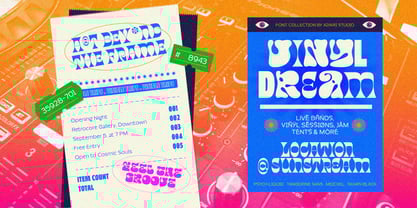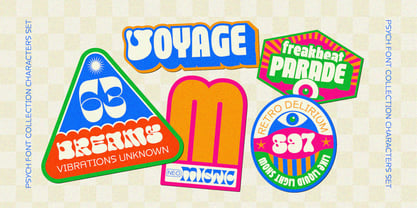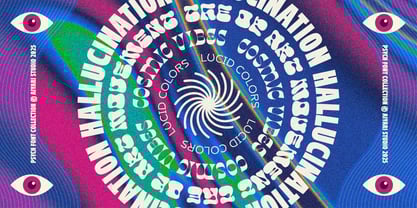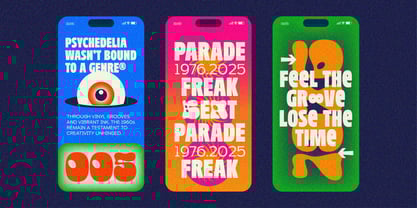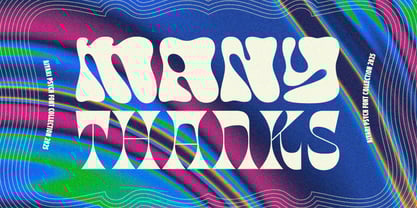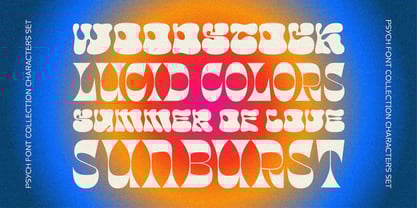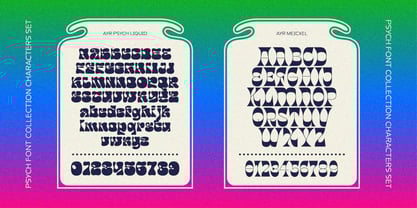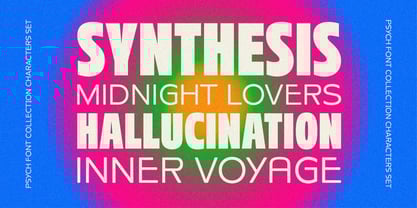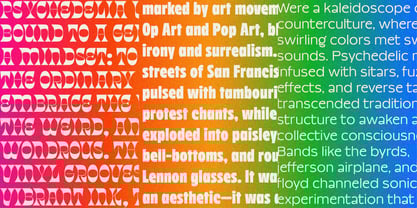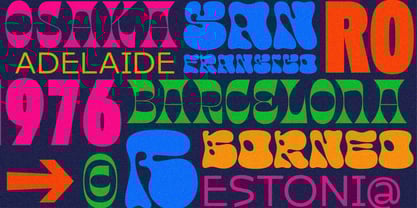
Ayr Psych
Die Schriftfamilie Ayr Psych wurde von Ricky Rinaldi, Aprian Sembada entworfen und von Aiyari veröffentlicht. Ayr Psych enthält 4 Stile und Familienpaketoptionen.
A curated set of four display typefaces exploring the expressive spirit of psychedelic design through contemporary forms. Each font in the collection offers distinct letterform treatments. From fluid and blobby to sharp and ornamental crafted to push psychedelic typographic boundaries.
The psych font collections best used for expressive branding, editorial layouts, poster art, album covers, cultural event visuals, and a nostalgic modern blend for both print and digital storytelling.
Aiyari Studio was founded in 2015 by Ricky Rinaldi, a renowned graphic and type designer from Bandung, Indonesia. Aiyari Studio's typefaces are characterized by their retro and nostalgic style, making them a valuable asset for designers aiming for a modern yet nostalgic style. It doesn't matter whether you're designing packaging, editorial layouts, or websites, Aiyari Studio typefaces will elevate your work and amplify its sense of timeless sophistication.